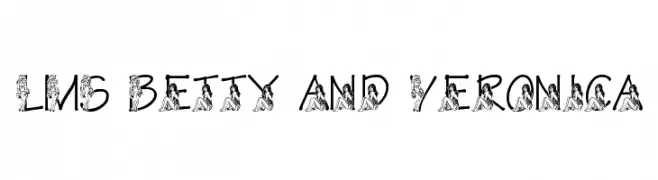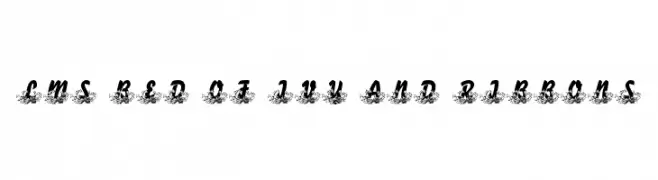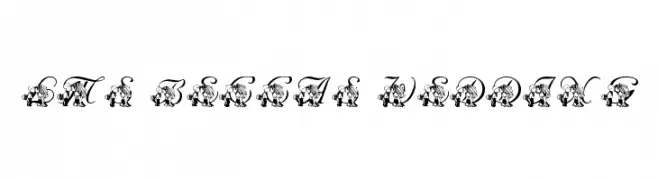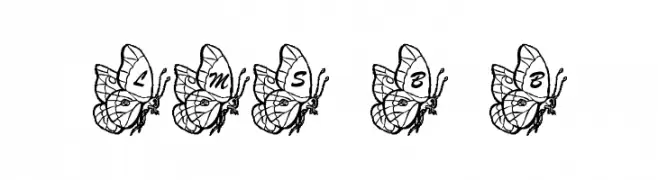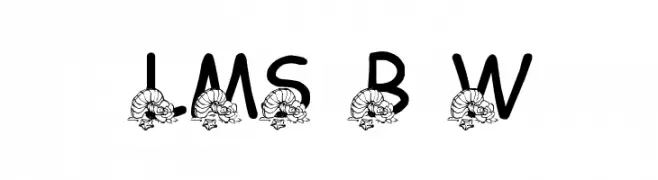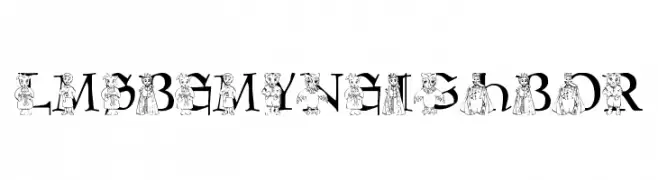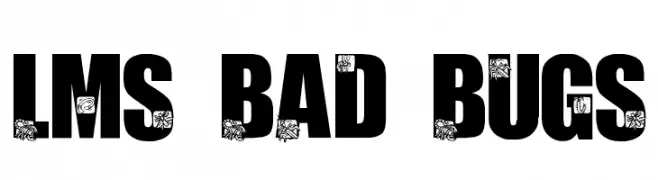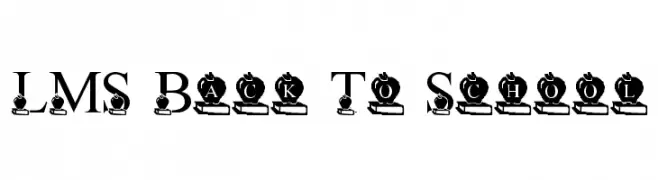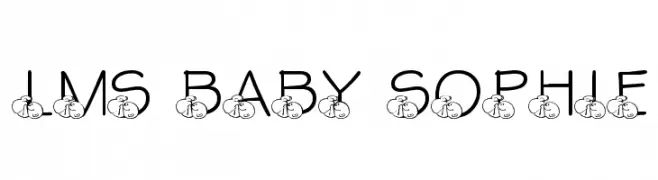
A decorative font with comic-style character illustrations integrated into each letter and number.
A decorative script font with ivy and ribbon embellishments.
A decorative, whimsical font with intricate, storybook-style characters.
A decorative font with characters embedded in butterfly designs.
A playful, decorative font with seashell motifs, perfect for beach-themed designs.
A playful, beach-themed decorative font with intricate interior designs.
A whimsical serif font with integrated character illustrations from a beloved children's show.
A bold, decorative font with bug illustrations on each character.
A playful, school-themed decorative font with apple and book motifs.
A playful font with baby illustrations accompanying each character, perfect for child-themed projects.